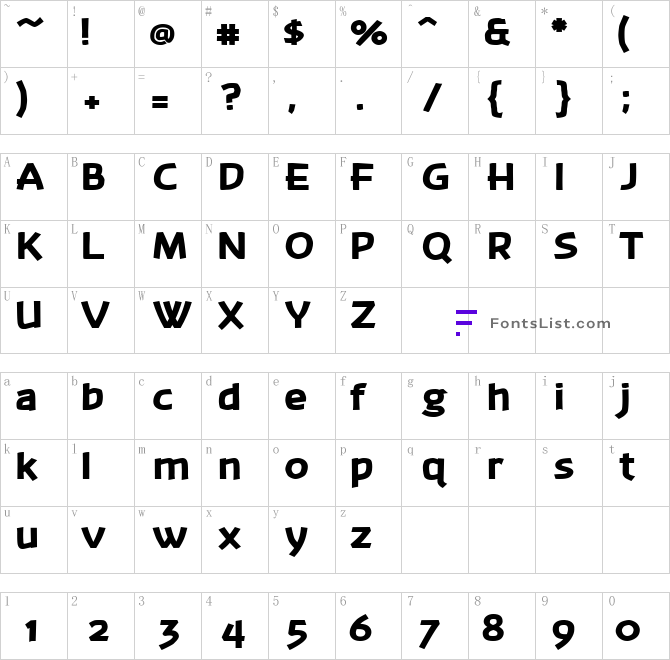
- Font Name:Banksia
Banksia-Black.ttf is a very beautiful artistic font, Banksia-Black.ttf is widely used in the design and printing of various books and pictures,Banksia-Black.ttf has a strong visual impact,Banksia-Black.ttf is a commonly used font in newspapers, magazines and books, and is used in posters, e-commerce Poster design, store design, logo design, font design and other fields.Banksia-Black.